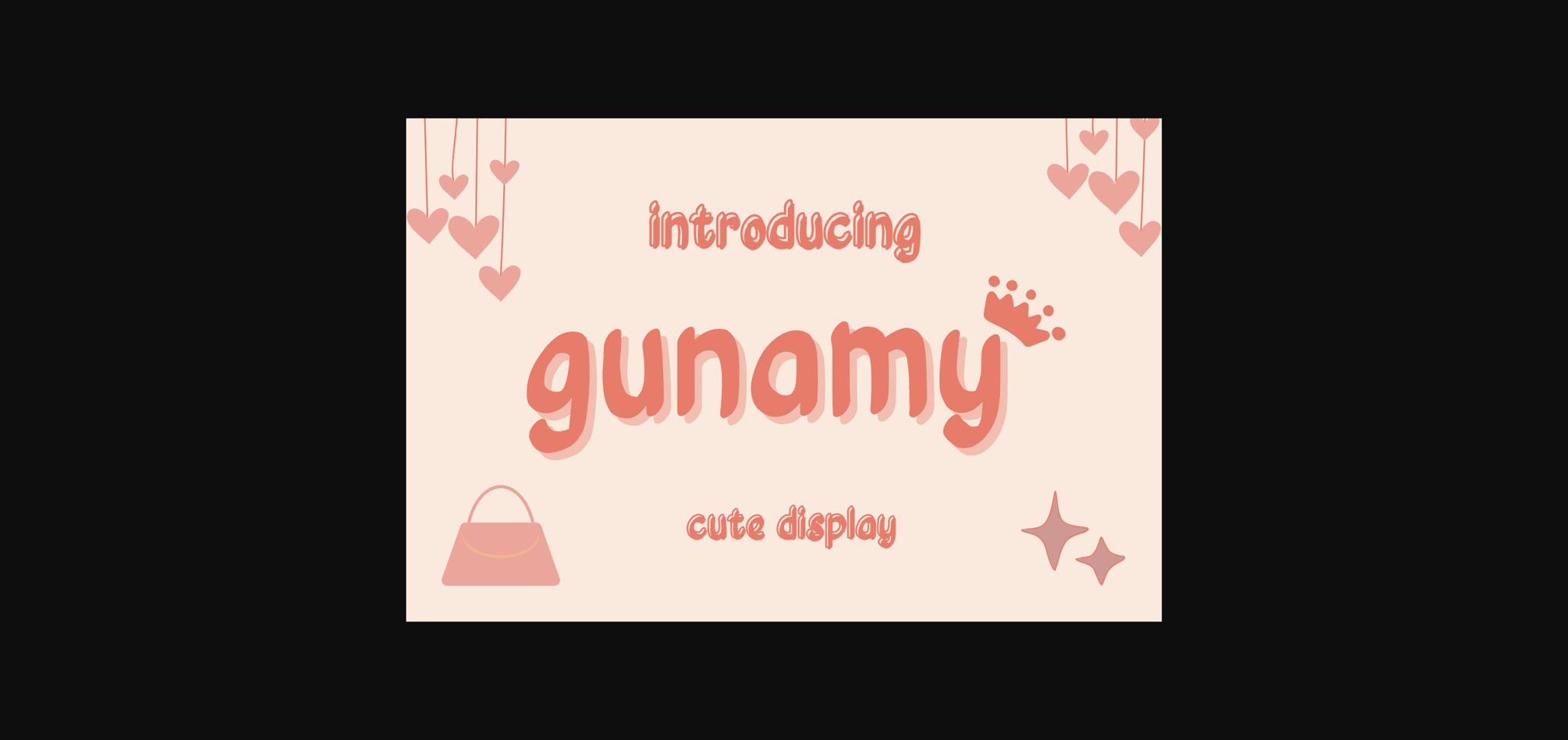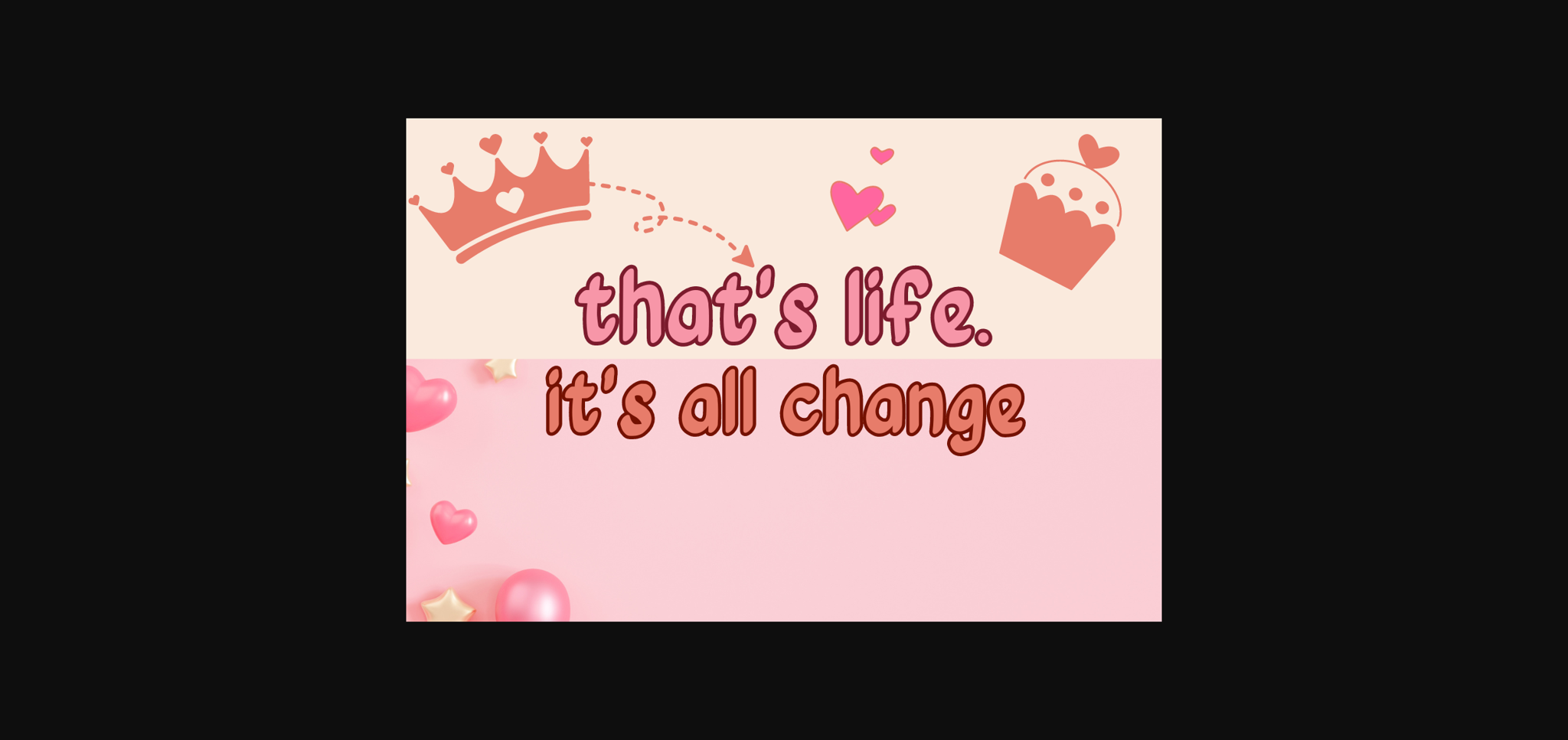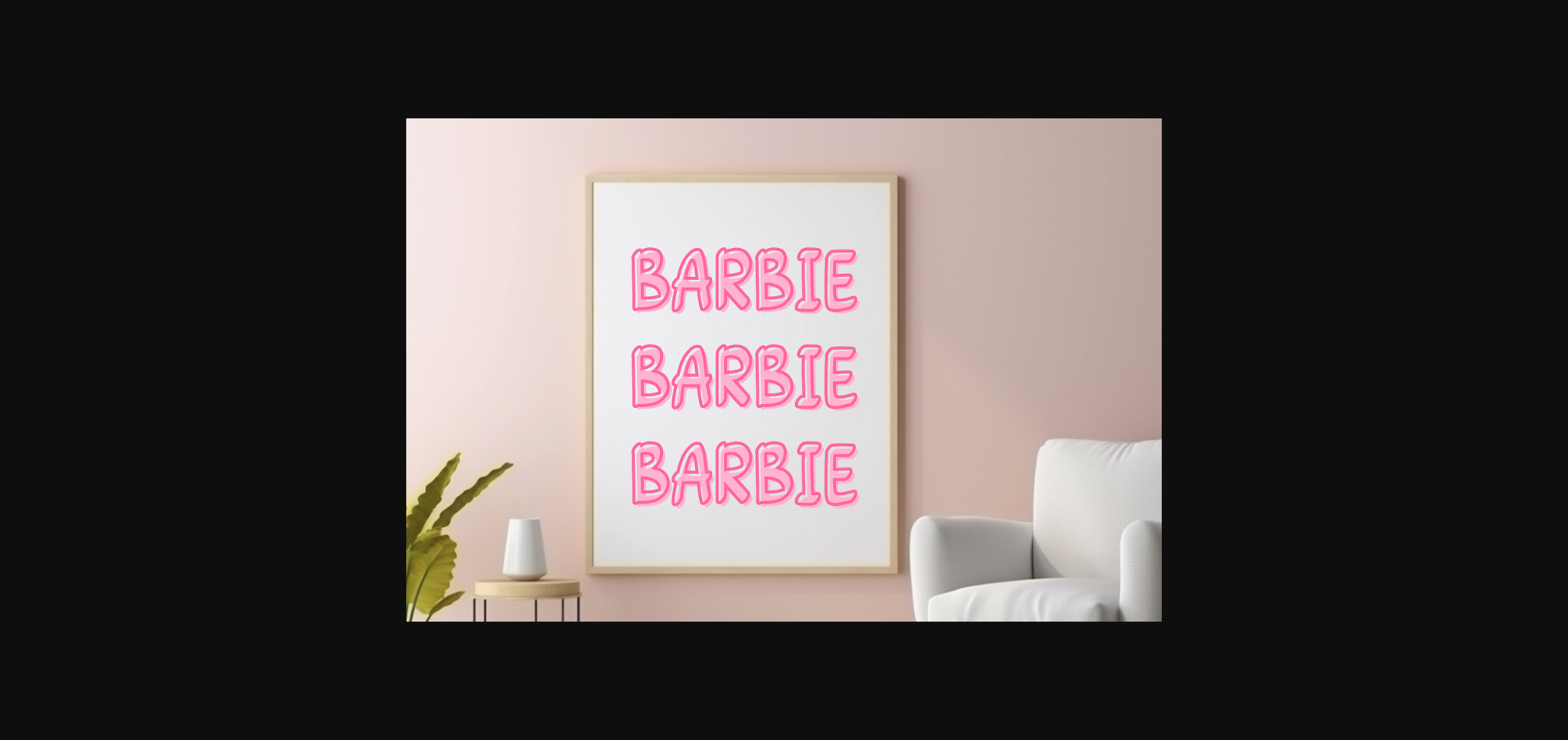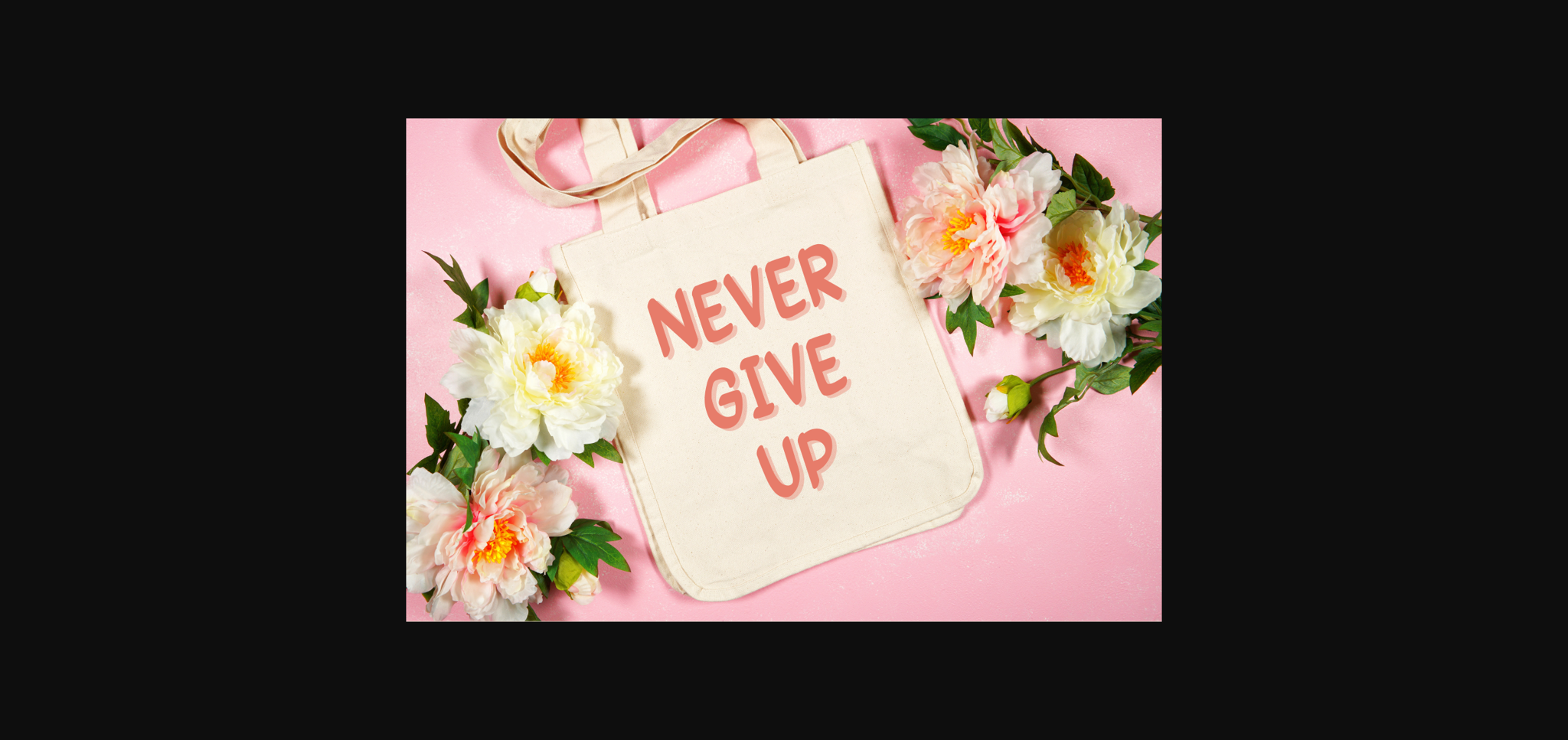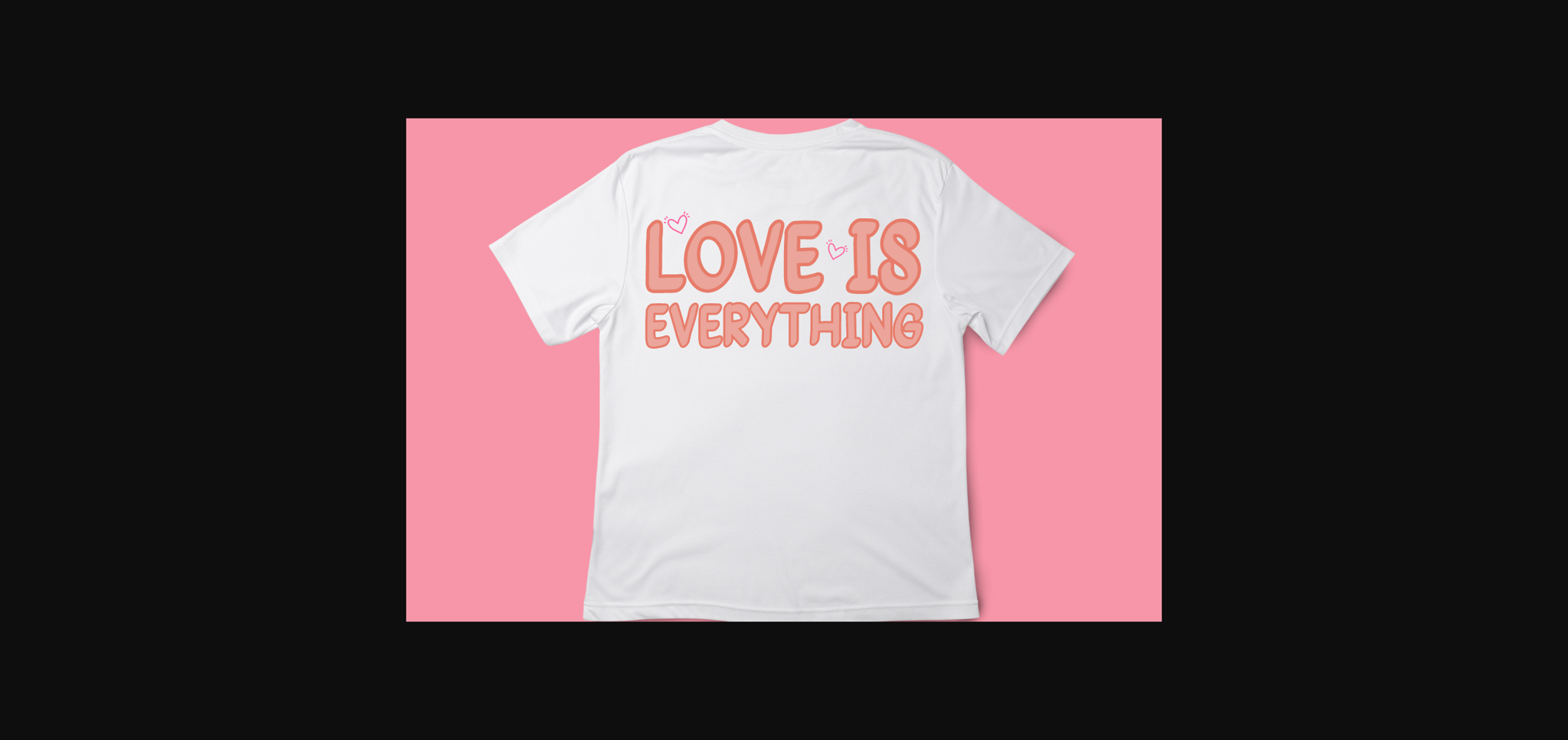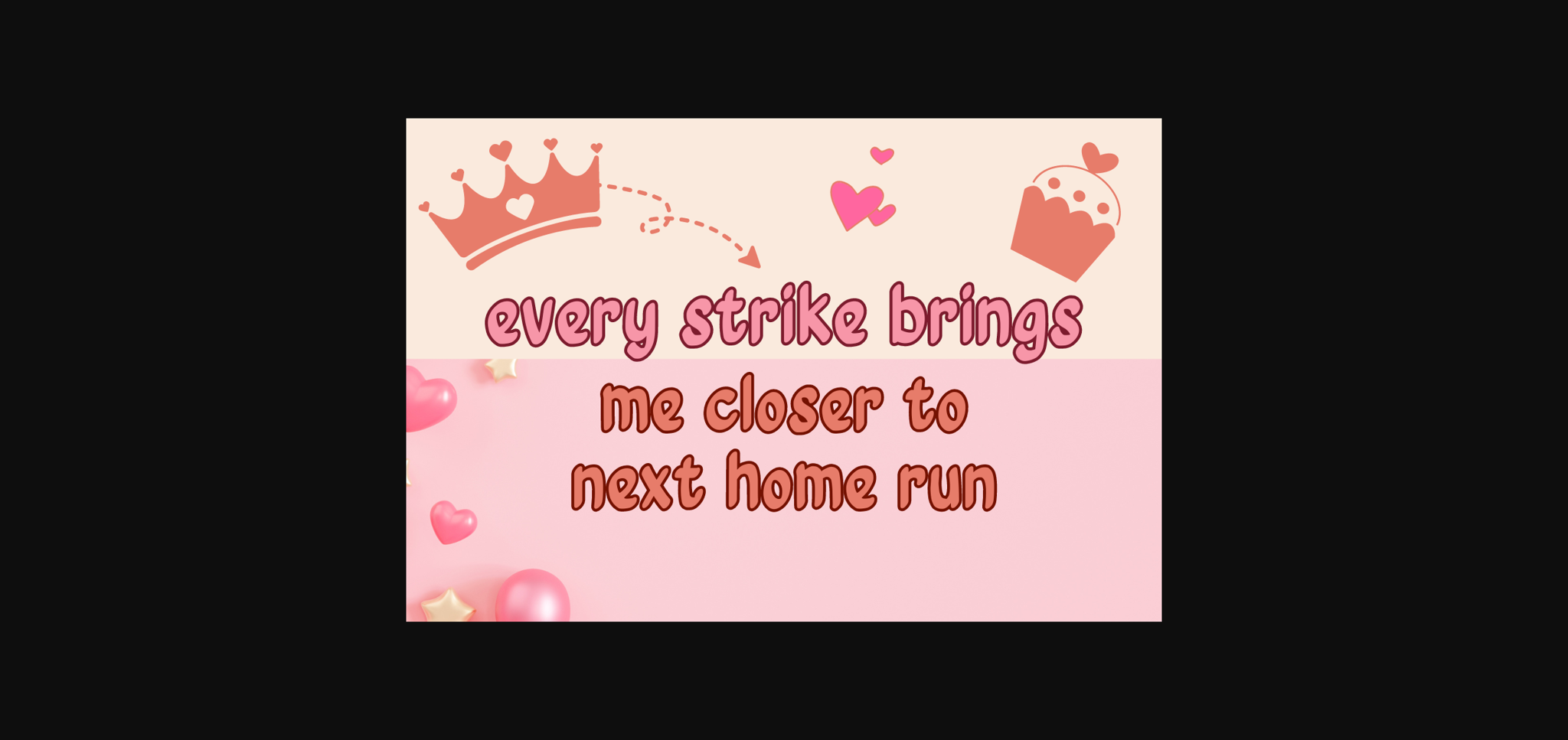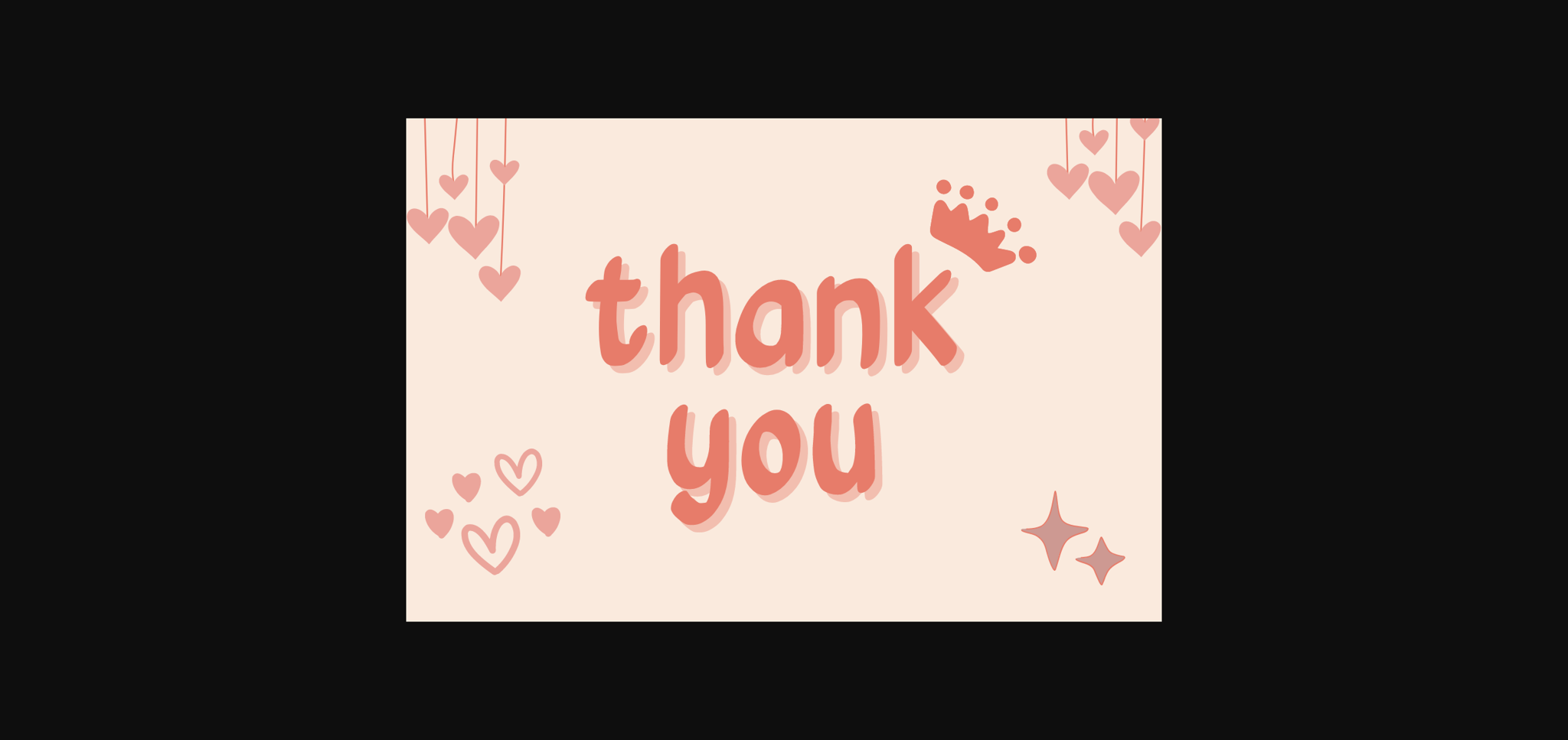
HomeSans Serif FontsGunamy Font Sans Serif Fonts Gunamy Font FacebookXPinterestWhatsApp 1 of 9 ... Gunamy Font Poster 2... Gunamy Font Poster 3... Gunamy Font Poster 4... Gunamy Font Poster 5... Gunamy Font Poster 6... Gunamy Font Poster 7... Gunamy Font Poster 8... Gunamy Font Poster 9... About Gunamy Font Gunamy is a fun and unique sans-serif font. This font will be a great asset to your font library, as it has the potential to enhance any creation. DOWNLOAD NOW People also explored Sea Water Font Saintly Font Starstuff Script Font Trust Font I Believe in You Font Texture Font Kitcat Romania Font Oh Wonderful Lightheart Font 404 0 TagsGunamyGunamy Font Previous articleIntana Suriyah FontNext articleCarhaty Font LEAVE A REPLY Cancel reply Comment: Please enter your comment! Name:* Please enter your name here Email:* You have entered an incorrect email address! Please enter your email address here Website: Save my name, email, and website in this browser for the next time I comment. Personal Use Free Triangular Curves Personal Use Free Read more about this font Elsabetha Personal Use Free Read more about this font Fillguy Font Personal Use Free Read more about this font Coolvetica Font Personal Use Free Read more about this font BLOG Fonts That Capture the Spirit of New York City New York City is more than just a place—it’s an experience, a rhythm, a visual language... Where to Buy American Fonts Online in 2024 Free vs Paid Fonts: Why Investing in Premium Fonts Is Worth It Free Fonts Risk: Why Free Fonts Can Be Dangerous for Designers